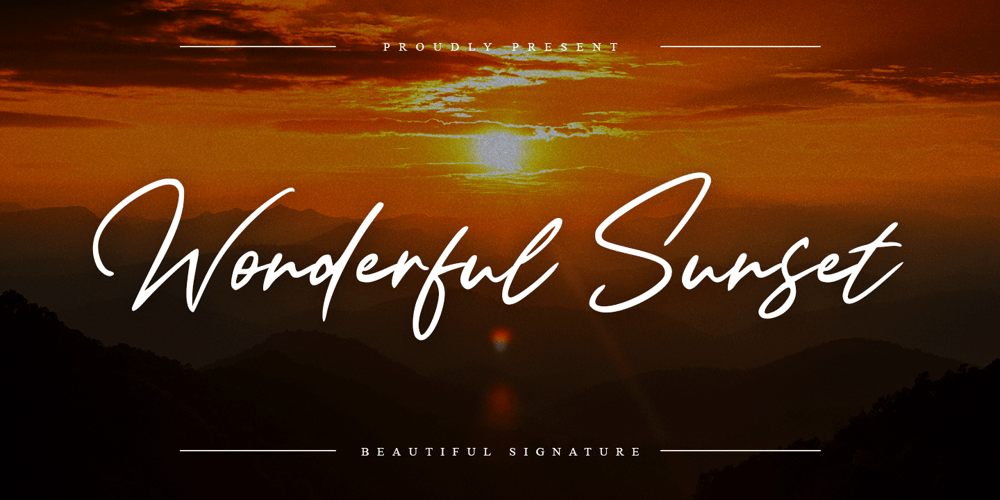
Wonderful Sunset Font Family was designed by Abdul Malik Wisnu and published by Almarkha Type. Wonderful Sunset contains 1 styles and family package options. Wonderful Sunset – Beautiful Signature and classy style, this font is great for your creative projects such as watermark on photography, and perfect for logos & branding, photography, invitation, watermark, advertisements, product designs, stationery, wedding designs,label, product packaging, special events or anything that need handwritting taste.